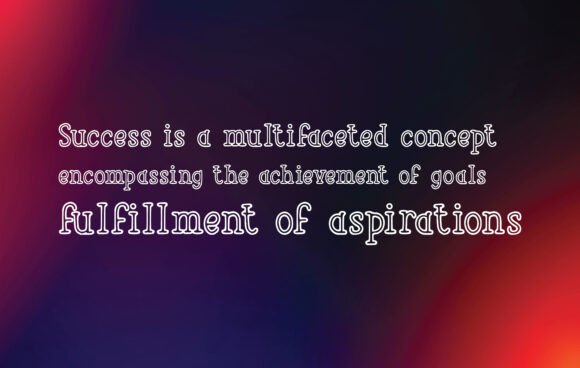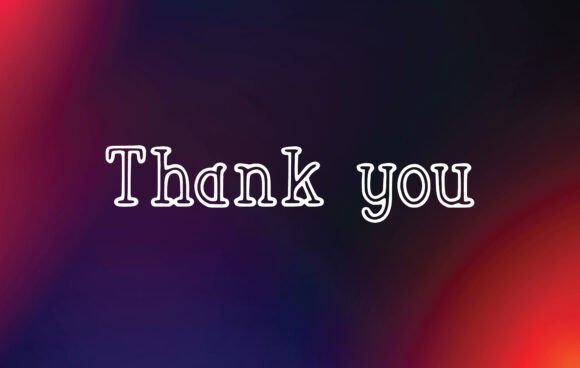
Introduction to Langston Font
Have you ever been stuck on a creative project, struggling to find the perfect font to bring your vision to life? I’m sure many of us have been there, frantically searching for the perfect design resource to elevate our work. But what if I told you that there’s a font that can take your creative ideas to new heights?
Meet the Langston Font, a beautiful and elegant handwritten font that’s perfect for creating eye-catching logos, branding, and quotes. Its high-quality design makes it a valuable resource for designers, offering a transparent background that’s easy to work with. And the best part? It’s available for free download, making it a must-have for any creative project.
Whether you’re a seasoned designer or just starting out, the Langston Font is an essential addition to your design arsenal. Its versatility and aesthetic appeal make it a go-to choice for designers who want to create stunning visual content that stands out from the crowd.
Key Features of Langston Font
- High-quality, unique design suitable for creative projects, making it a valuable design resource.
- Features a transparent background, allowing for seamless integration with various design elements.
- Unique characteristics include elegant lines, sophisticated typography, and a touch of modern flair, making it perfect for designers seeking a distinctive look.
Honest Review: Langston Font
I recently came across the Langston Font, and I’m excited to share my thoughts on this high-quality design resource. The font has a unique, elegant style that makes it perfect for creative projects.
- The Langston Font has a clear and transparent background, making it easy to overlay text on any image or background.
- The font is highly versatile and can be used for a wide range of creative projects, from brochures to website headers.
- The font may not be suitable for projects that require a bold, dramatic look, as it’s more suited for elegant and refined designs.
- The font is a bit on the formal side, so it may not be the best choice for informal or playful projects.
Overall, I’m impressed with the Langston Font. It’s a high-quality design resource that’s perfect for designers looking for a elegant and versatile font. With its transparent background and free download option, it’s a great addition to any designer’s toolkit.
Tips for Getting the Most Out of Langston Font
For best results, use the Langston Font in conjunction with a transparent background to achieve a clean and professional look. You can also experiment with different font sizes and styles to create a unique design. Additionally, you can download the Langston Font for free to use it in your creative project.
The Langston Font is commonly used for designing logos, posters, and business cards. It is also used for creating high-quality content for social media and marketing materials. Its high-quality design and transparent background make it a popular design resource among designers and artists.
By incorporating Langston Font into your design workflow, you can elevate your creative projects to new heights. Its unique features and characteristics make it an excellent addition to any design arsenal. We highly recommend downloading Langston Font and exploring its potential. Experience the difference it can make in your work and discover a world of creative possibilities.